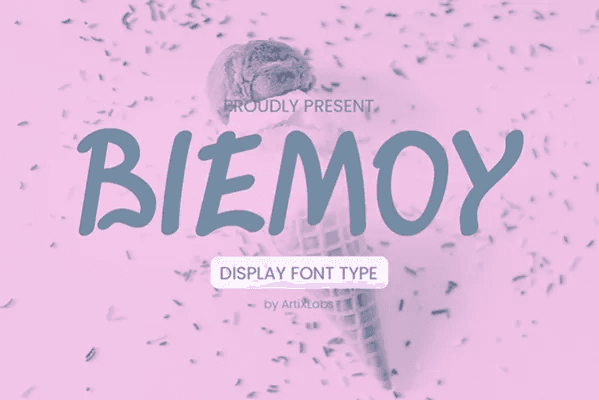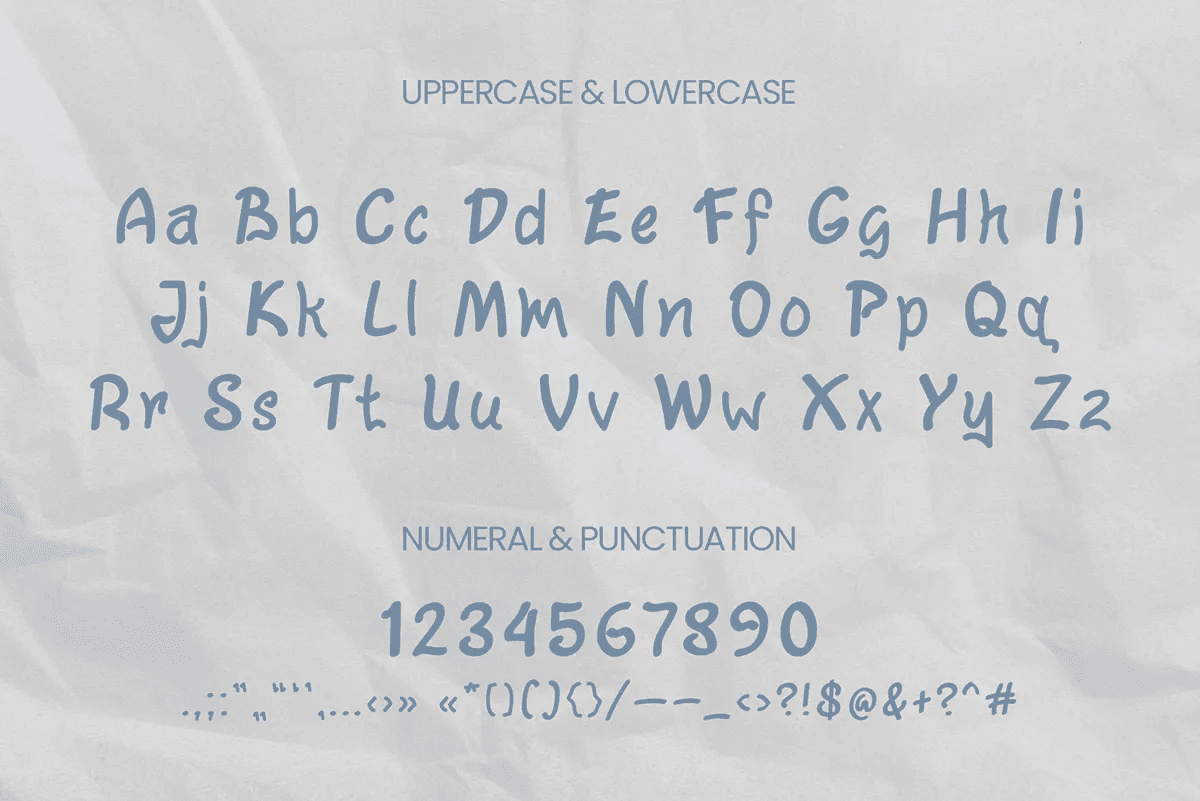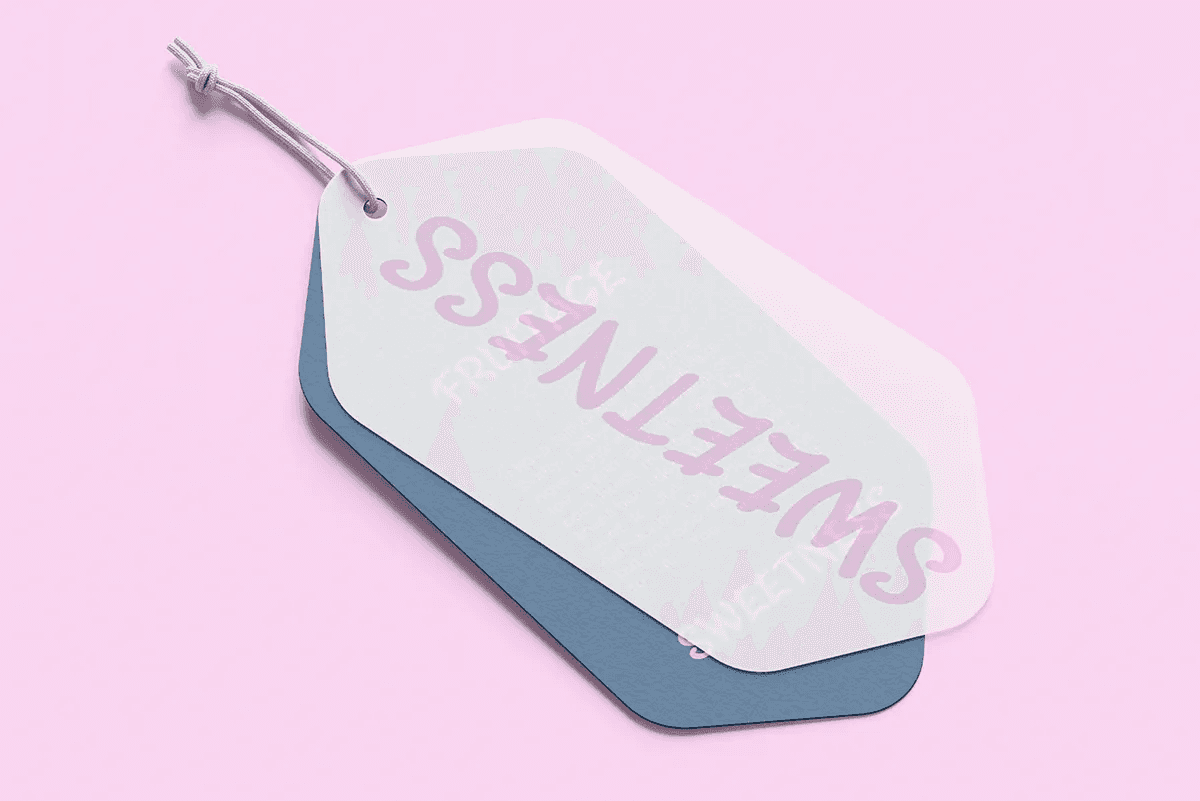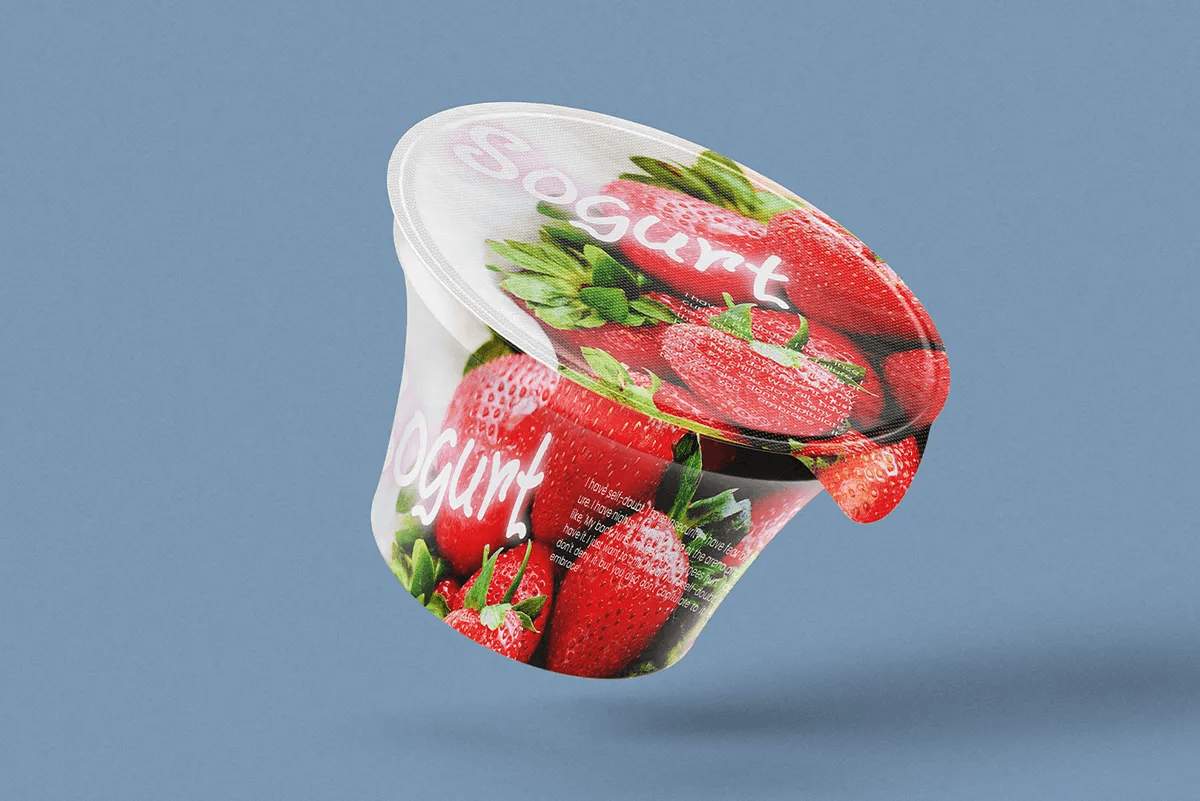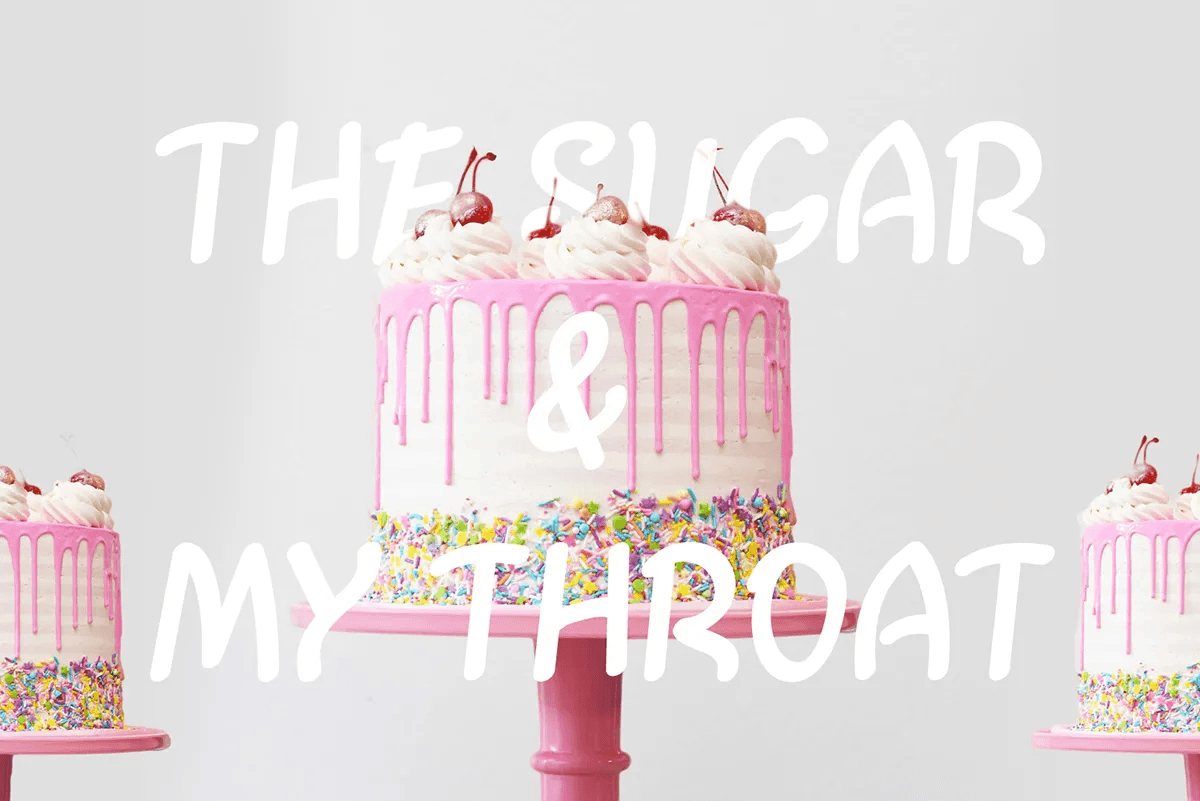
Biemoy Display Font is a rounded minimalist font designed for modern branding and playful content. Its clean, friendly style is perfect for kids’ brands, educational materials, or lifestyle blogs. Whether you’re targeting young audiences or creating approachable designs, this font adds a delightful and professional touch to your projects.